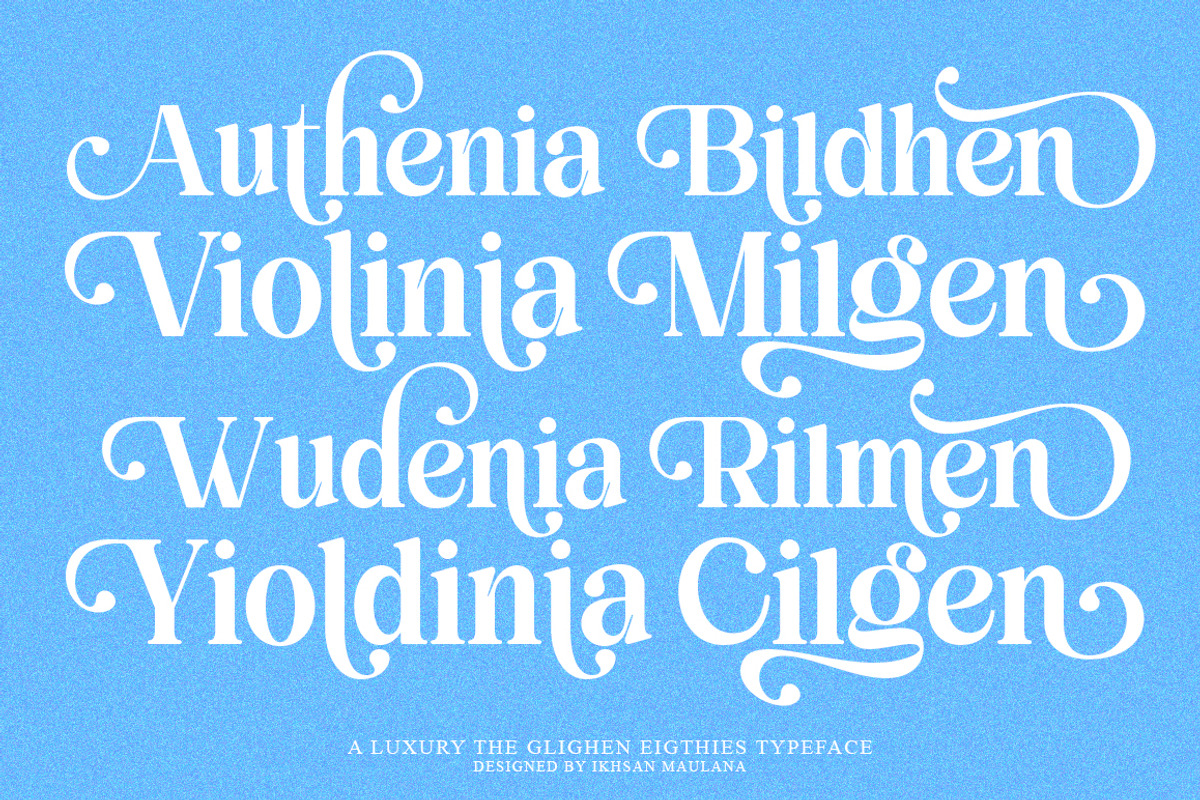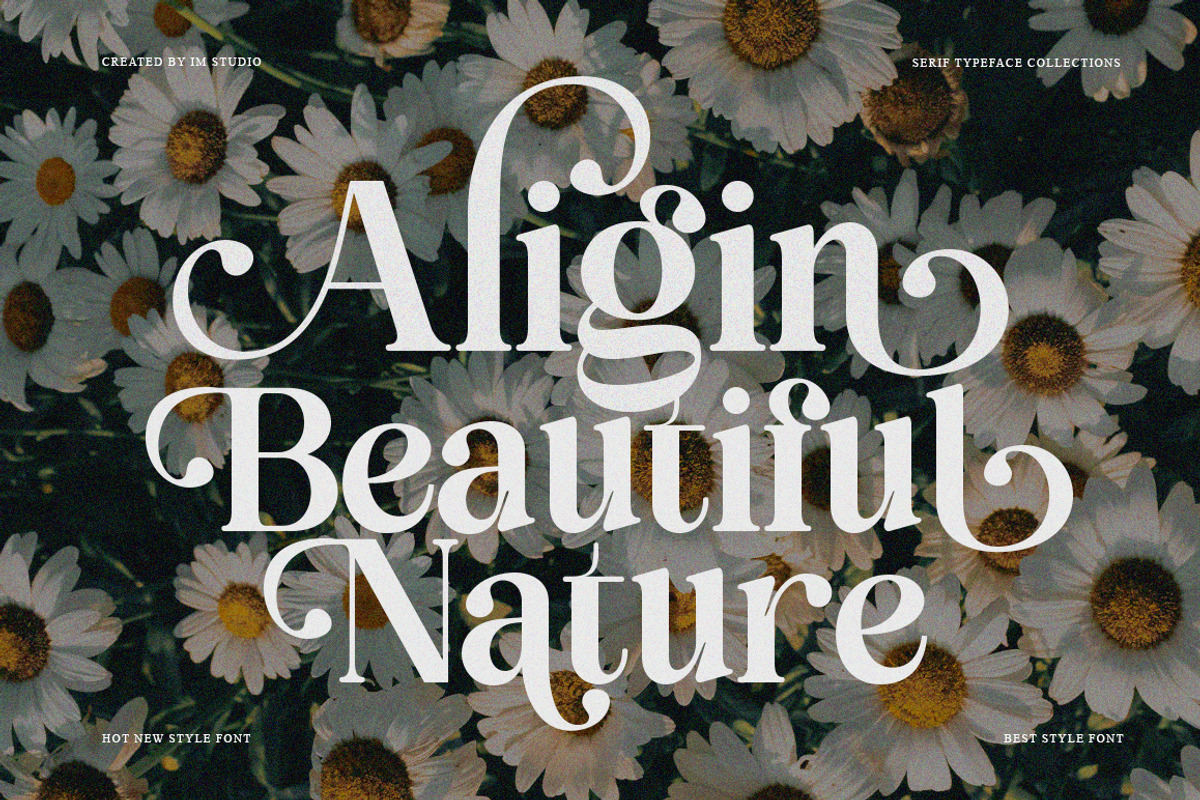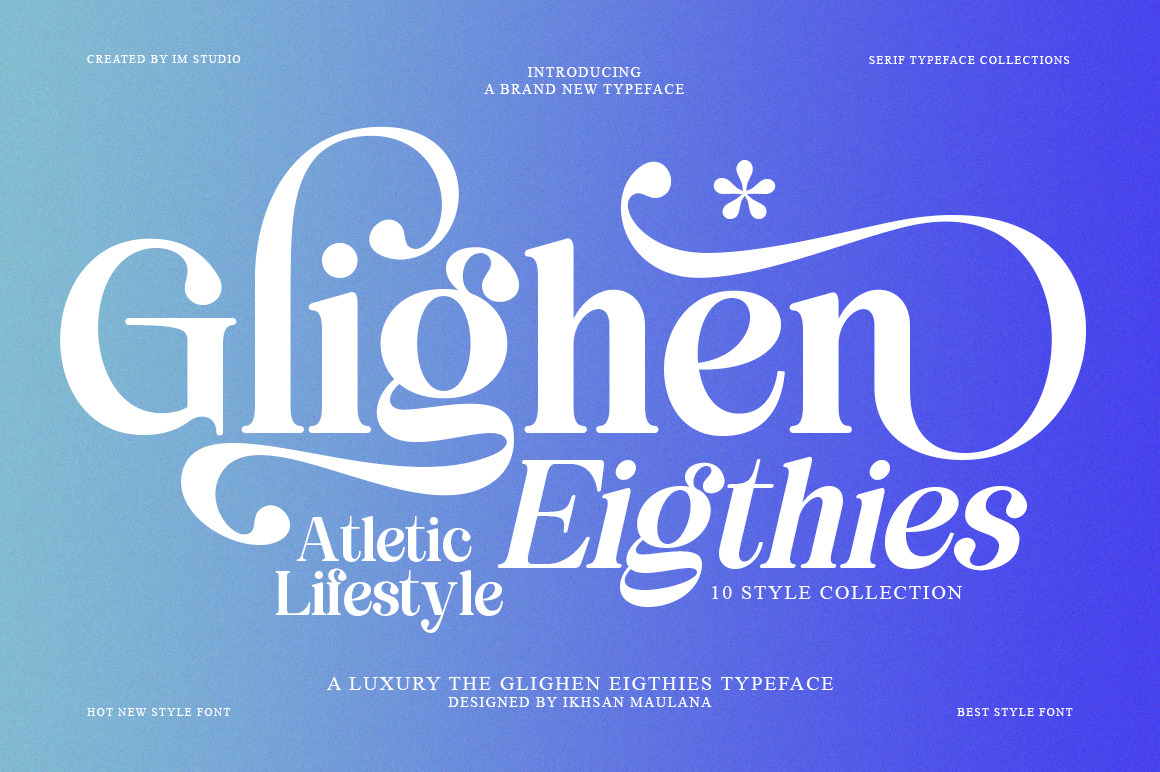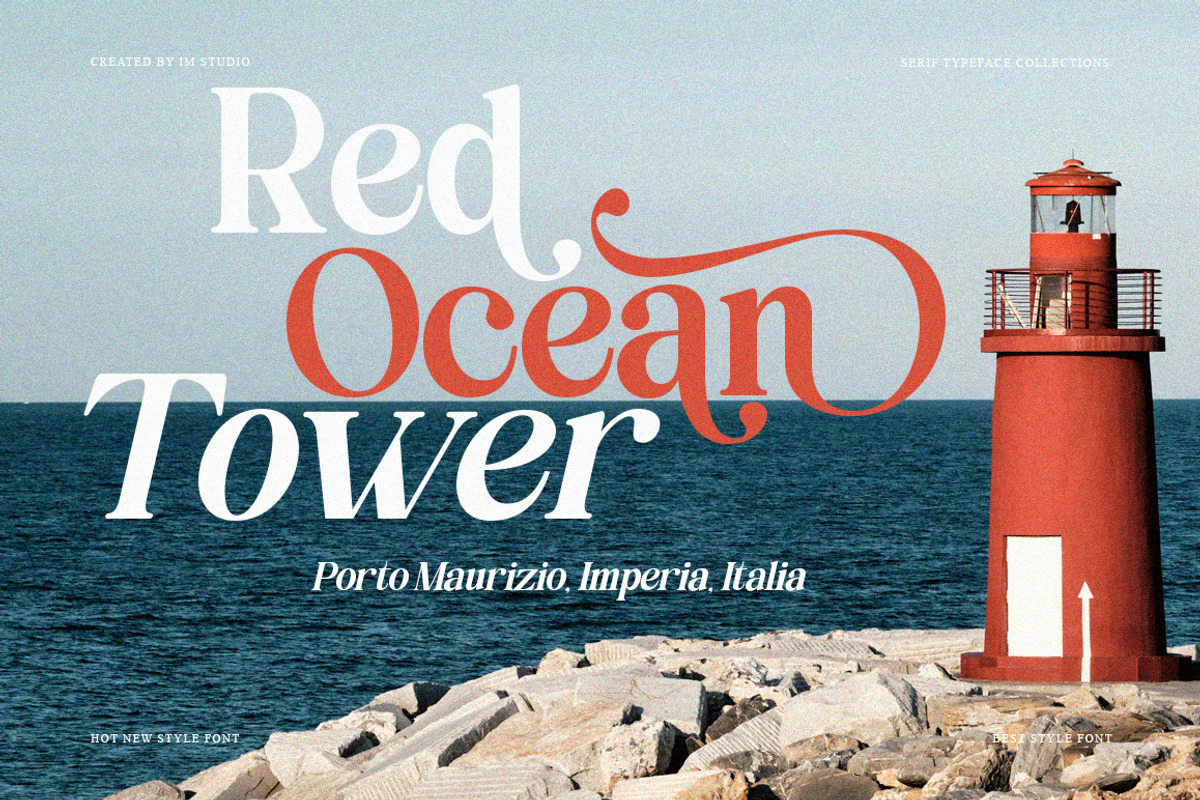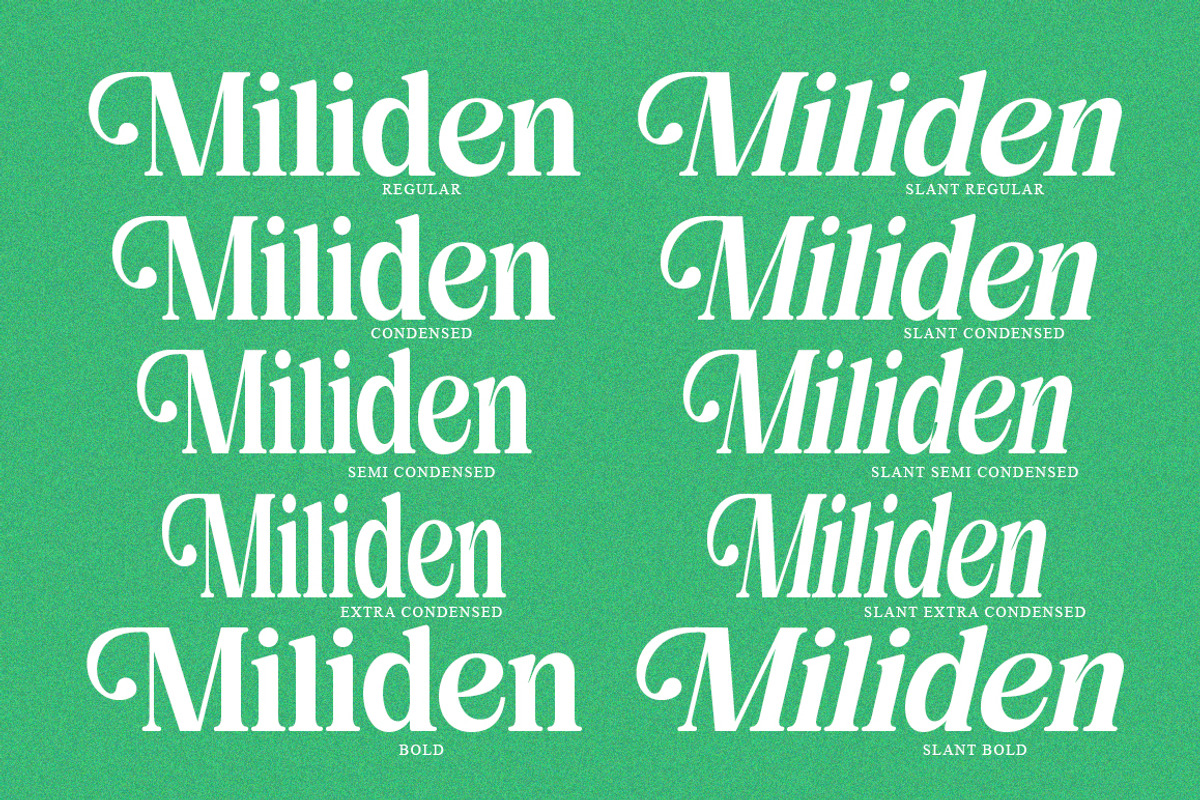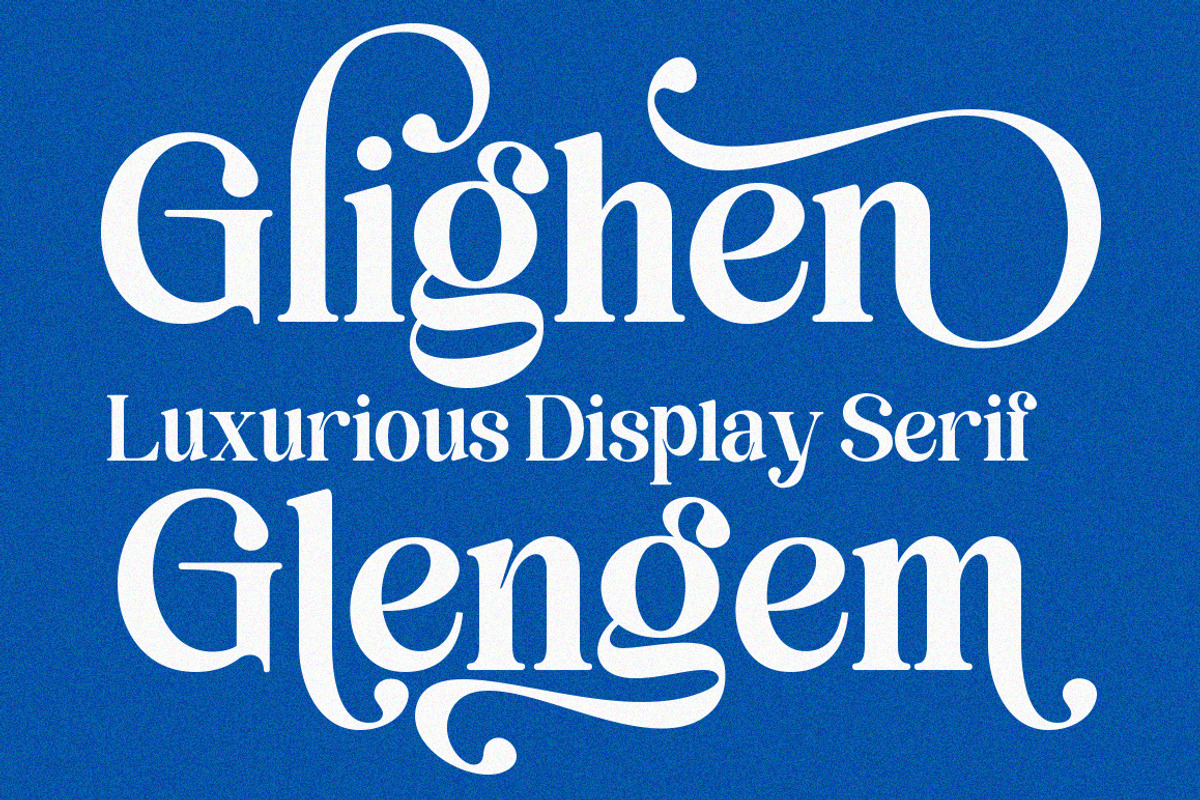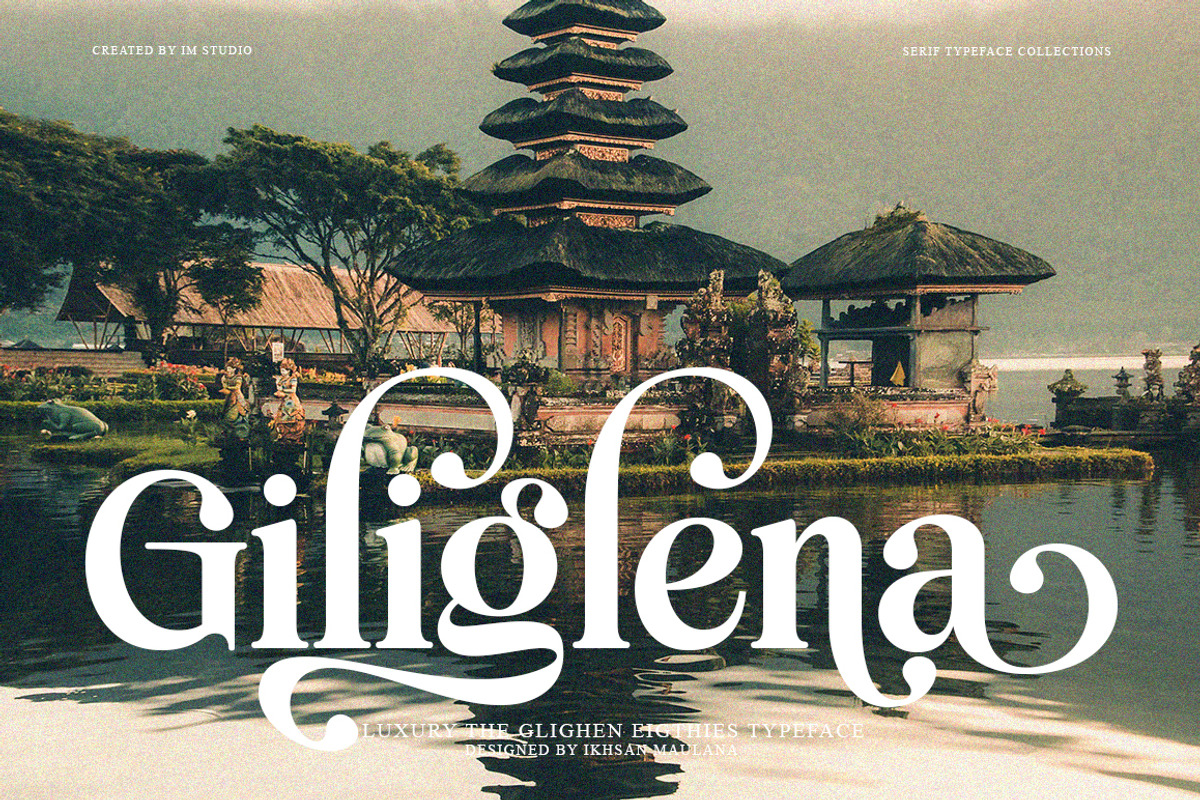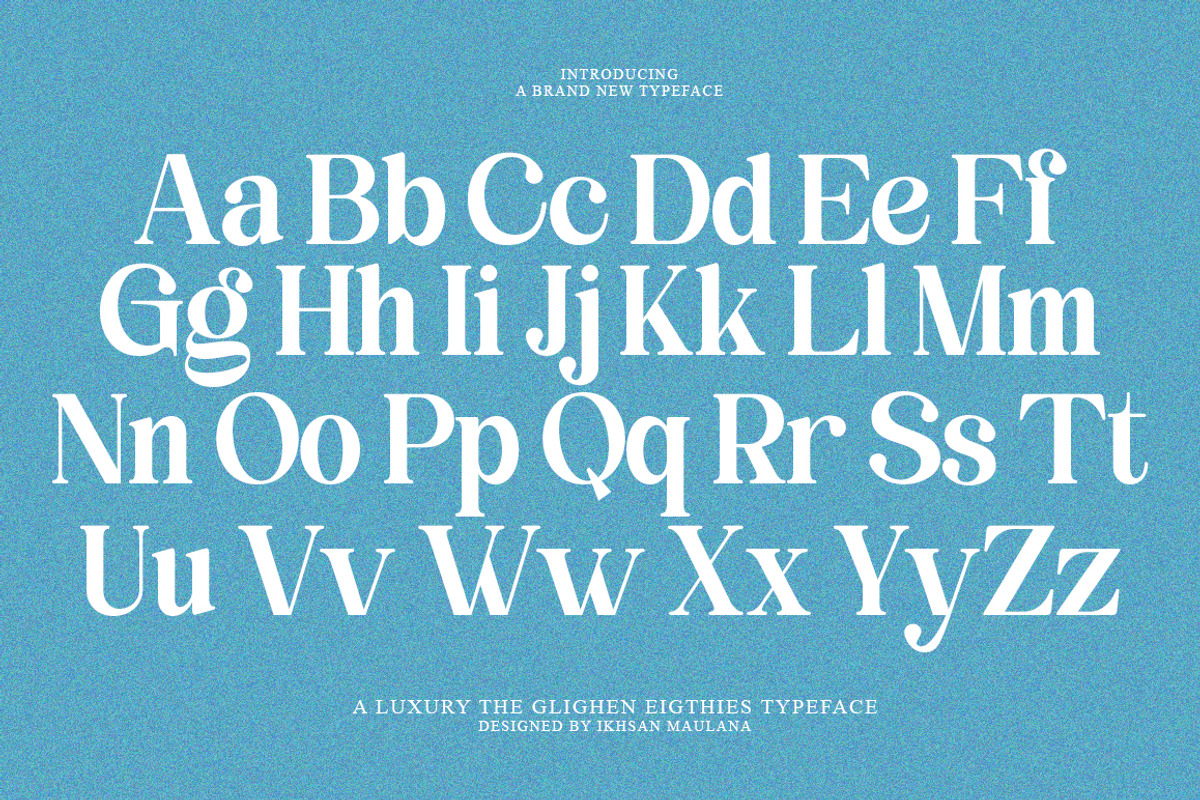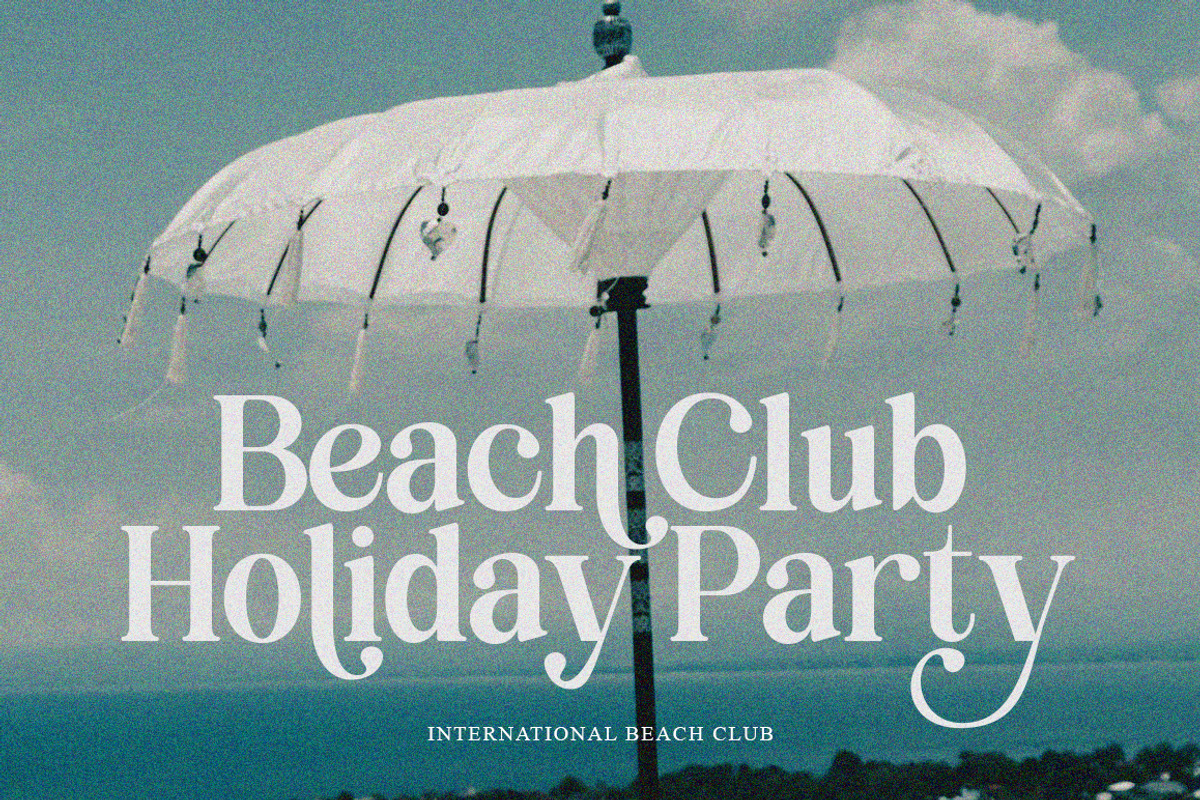
Glighen Eigthies | 10 Style Font
lighen Eighties | 10 Font Styles with a Classic Modern Retro Serif
Glighen Eighties is a luxurious vintage serif typeface that captures the elegance of classic design with a modern retro twist. Featuring 10+ stylistic alternates and ligatures, this medium-contrast display font lets you mix and match letterforms to craft beautiful, unique curves and shapes in seconds, no advanced design skills required.
Bold yet refined, Glighen Eighties brings timeless character to branding, logos, wedding invitations, social media graphics, advertisements, packaging, product labels, photography watermarks, stationery, and any project that calls for sophisticated, high-impact typography. Its versatile design maintains excellent legibility across both large display headlines and smaller editorial text.
Full A–Z Character Set (Uppercase & Lowercase)
Accented Characters (Western European language support)
Ligatures & Extensive Stylistic Alternates